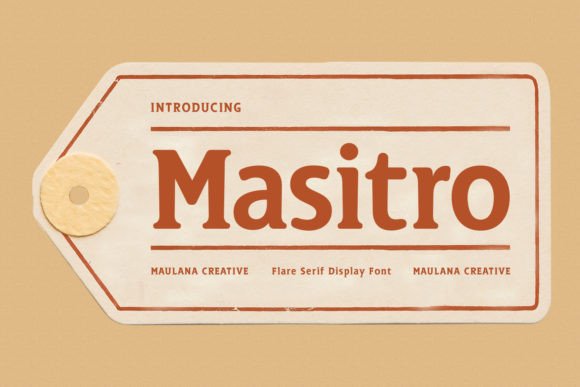
Dive headfirst into the world of typography and explore the wonders of Masitro, a font designed to leave a lasting impression. Picture this: a font so mesmerizing, it dances across your designs with an enchanting grace that captivates your audience. Masitro is more than just a font; it's a magical journey waiting to be discovered.
Immerse yourself in its beautiful curves and captivating details. Its rounded serif letters, crafted with the utmost precision, will infuse your designs with a touch of elegance and sophistication. Masitro's versatility knows no bounds; it effortlessly flows from bold and striking headlines to delicate and flowing paragraphs, inviting your readers to explore every nuance of your message.
With Masitro, your designs will take on a new life, exuding a delightful charm that speaks volumes about your attention to detail and passion for visual expression. It's the perfect font for those seeking a perfect blend of modernity and tradition, those who dare to stand out and leave their mark on the world.